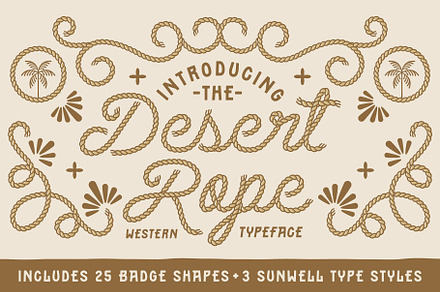
Desert Rope Font Duo
A font duo with a desert character – rope-like script strokes paired with a weathered supporting face in a southwestern register.
The rope reference is carried in the stroke construction rather than as decoration, which keeps it legible where literal rope lettering would not be.
- Rope reference built into stroke form
- Alternates and ligatures
Made for
- Western and southwestern branding
- Bar and restaurant identity
- Apparel and merch print
- Packaging and signage